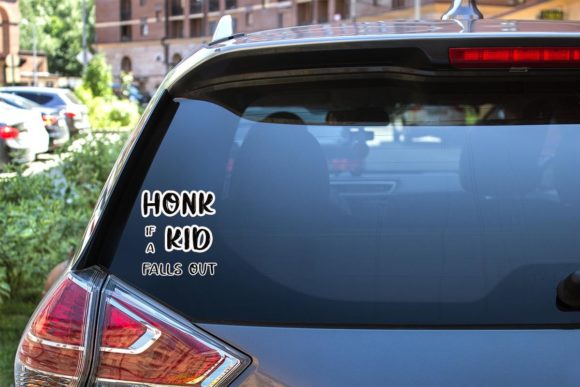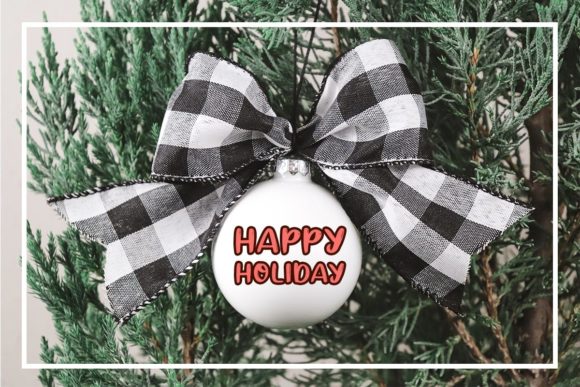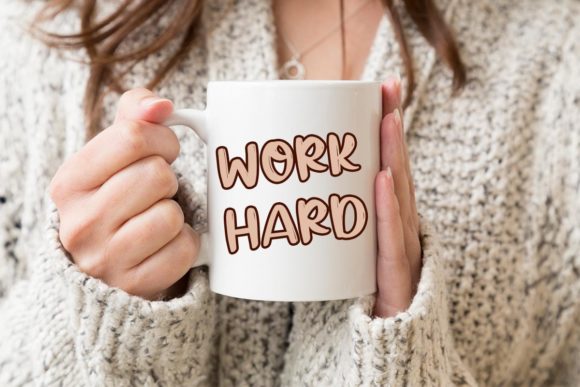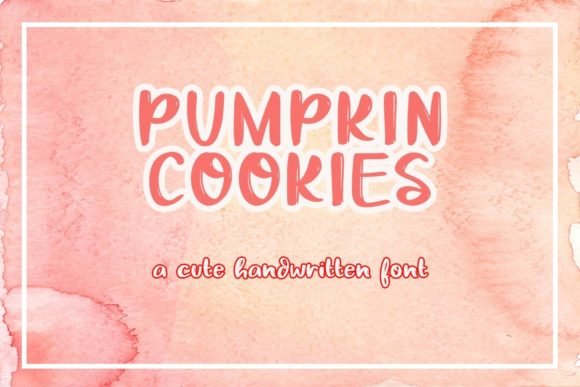
Introduction to Pumpkin Cookies Font
Pumpkin Cookies is a cute and casual handwritten font.
It is great for crafters and graphic artists alike It is suitable for book texts, documentation, business reports, business correspondence, magazines, newspapers, posters, advertisements, multimedia, and corporate design.